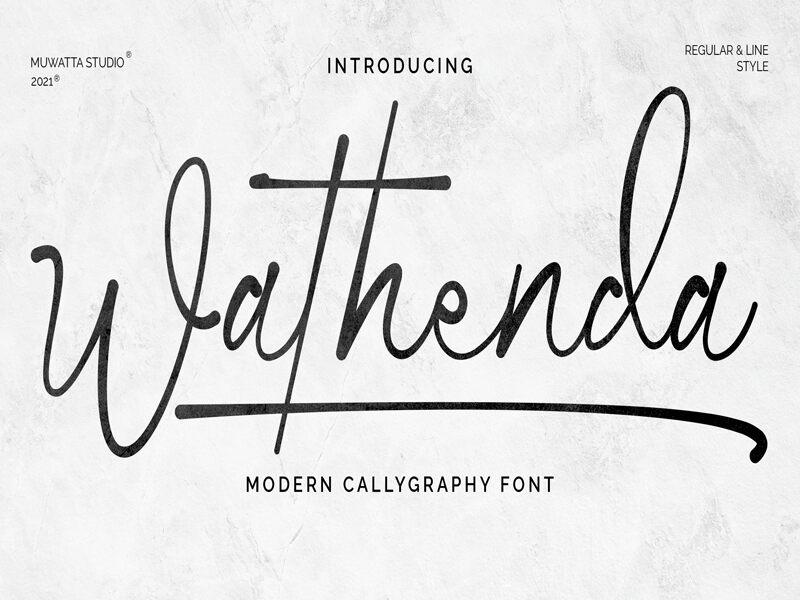
Wathenda Signature Font is a thin and elegant script font. This font is specially made for those who need a beautiful and refreshing look for their designs.
The font is perfect for branding, wedding invites, branding, logos, product packaging, invitation, quotes, t-shirt, label poster
Wathenda Signature Font Features:
Uppercase
Lowercase
Number & Puntuaction
- Multilingual
- Ligatures
- Swash
- PUA Encoded
Muwatta Studio
Wathanda Signature